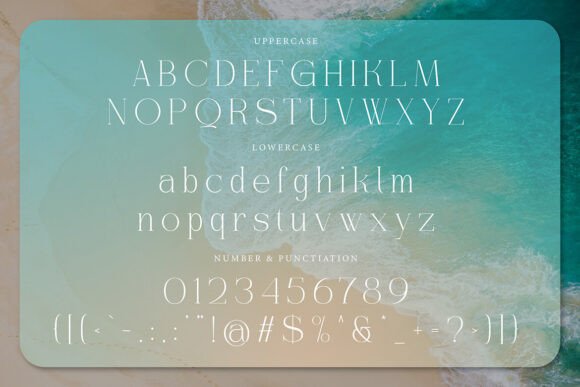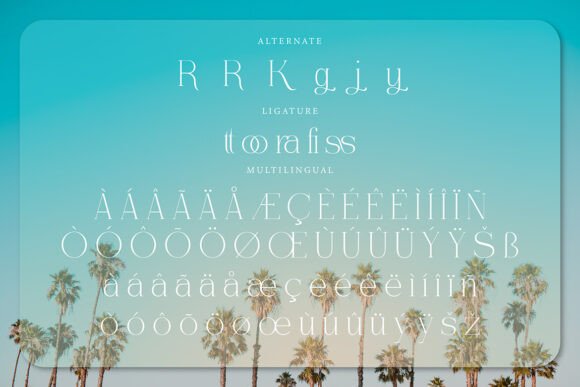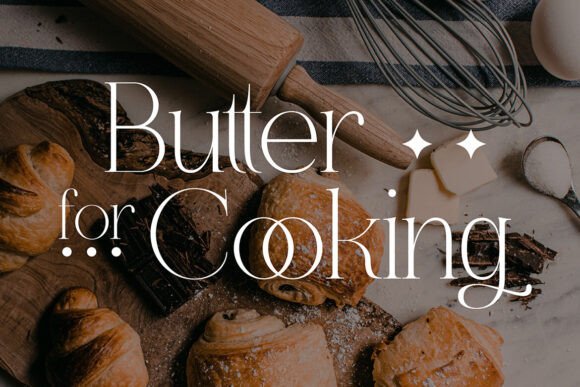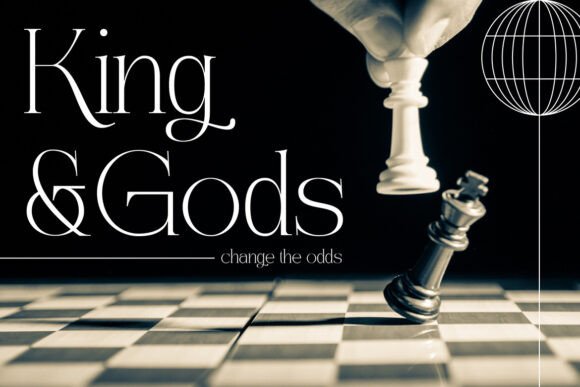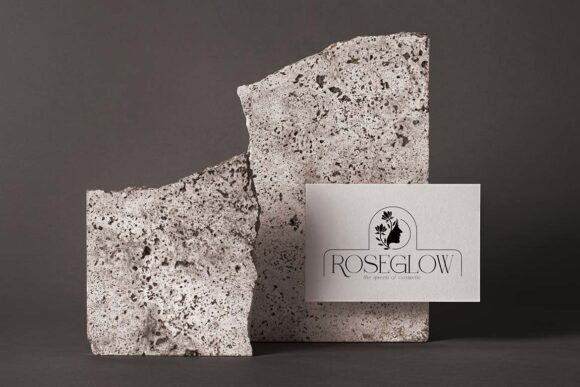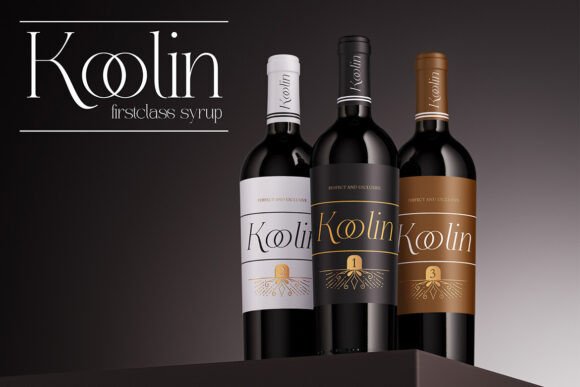
Introduction to Lifiyn Font
Introducing Lifiyn, the epitome of elegance captured within a serif typeface.
This timeless beauty outshines its peers with a sophisticated allure that stands the test of time Lifiyn’s graceful curves, exquisite serifs, and even proportions are a testament to immaculate design, adding a classy touch to luxury branding, wedding invitations, editorial designs, and premium packaging.
Key Features of Lifiyn Font
Why Choose Lifiyn Font?
Lifiyn Font offers exceptional quality and versatility, making it a valuable addition to your design toolkit. Whether you’re creating for personal projects or commercial use, Lifiyn Font delivers professional results.